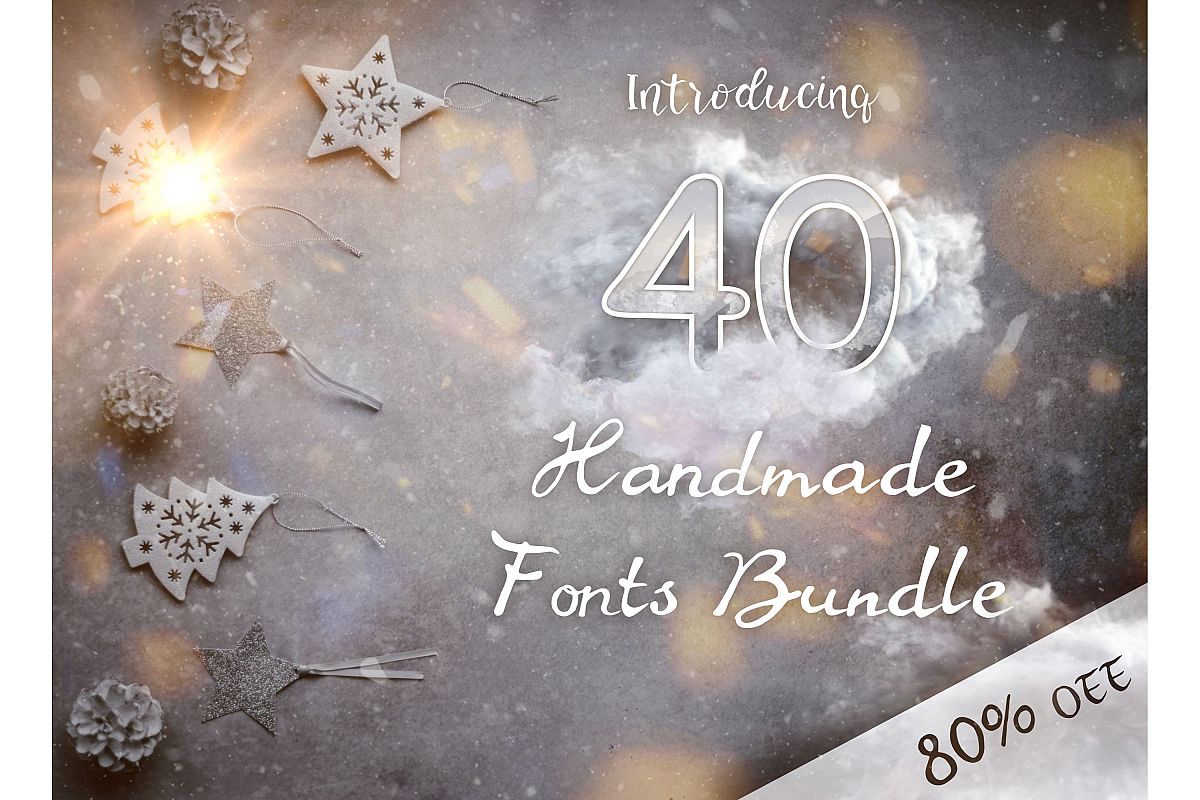
40 Handmade Fonts
Periwinkle-Regular
RedGuelderRose-Regular
Ranunculus-Regular
Pelargonium-Regular
Carnation-Regular
Browallia-Regular
Magnolia-Regular
Bergenia-Regular
Sanvitalia-Regular
Silvermound-Regular
Syringa-Regular
Azalia-Regular
UkrainianHistory-Regular
Ballon-Regular
Astrantia-Regular
UkrainianWill-Regular
Verbena-Regular
Zinnia-Regular
Impatiens-Regular
Diascia-Regular
Dianella-Regular
Dahlia-Regular
Foxglove-Regular
Geranium-Regular
Gaura-Regular
Comfrey-Regular
Cyclamen-Regular
Guldahar-Regular
Hepatica-Regular
MorningGlori-Regular
Lantana-Regular
ClarySage-Regular
Linaria-Regular
Leadword-Regular
Lobelia-Regular
CastonBean-Regular
Catmint-Regular
MagicColorful-Regular
CarpathianLegend-Regular
Mirabilis-Regular
it's a wonderful font with a unique, detailed and handmade look.
These fonts look amazing in all caps with a wide-set spacing if you want to
try a classy look or beautiful on its own in capital and lowercase
letters for something completely timeless.